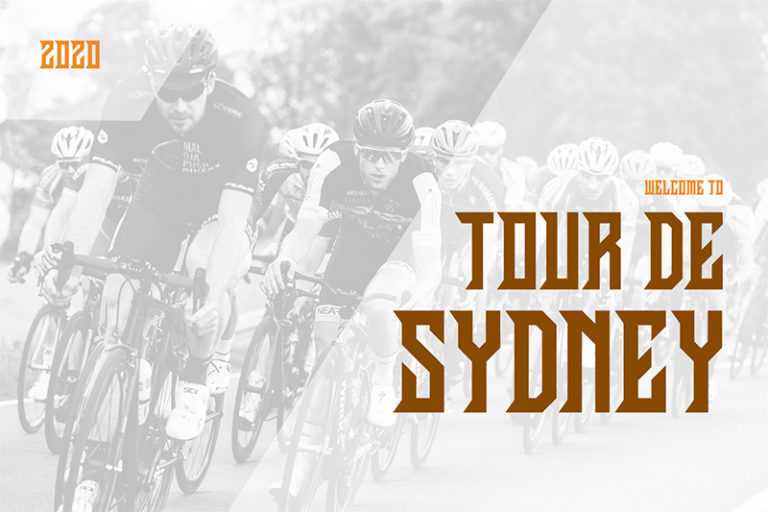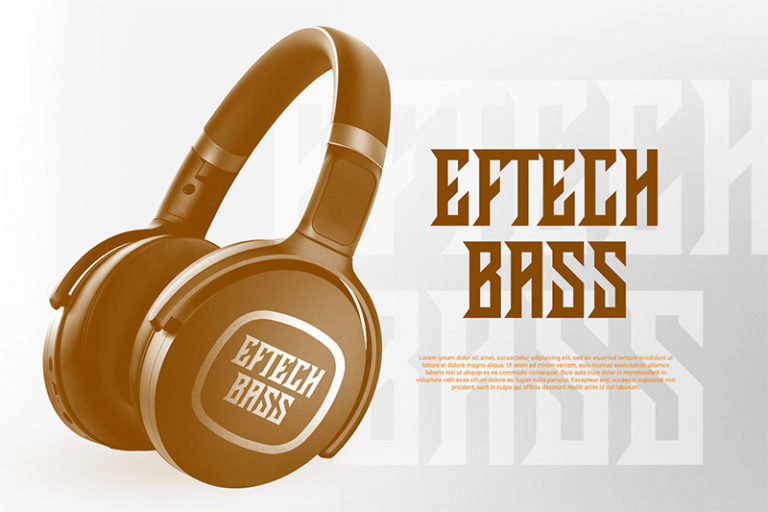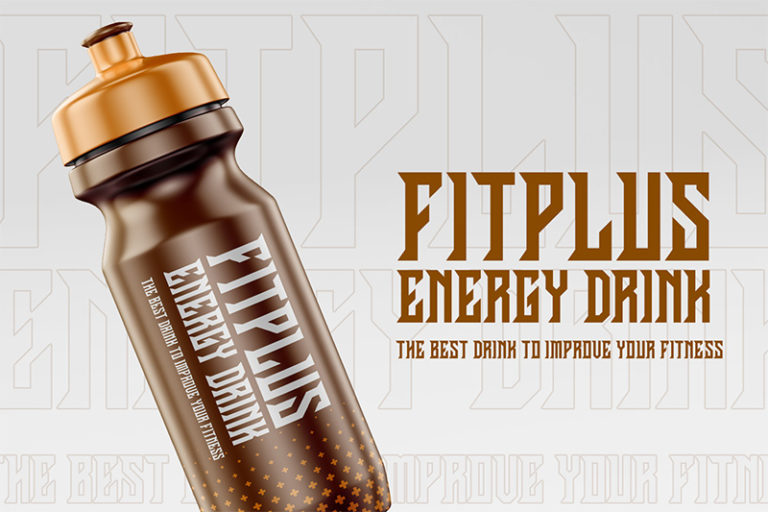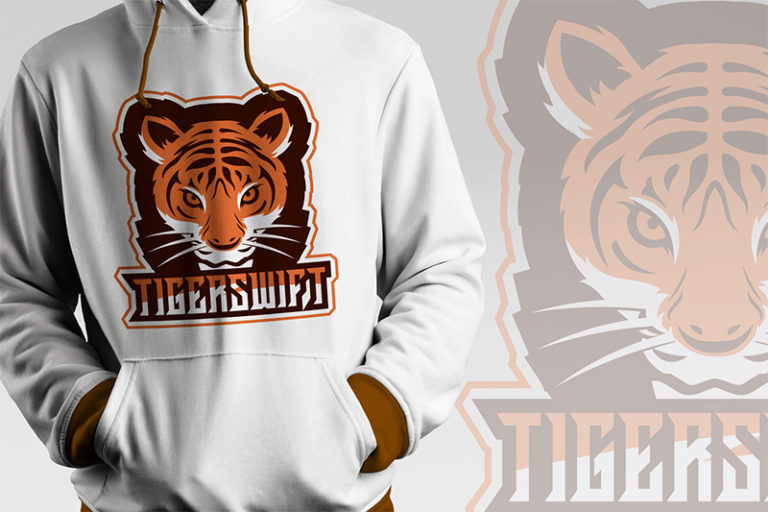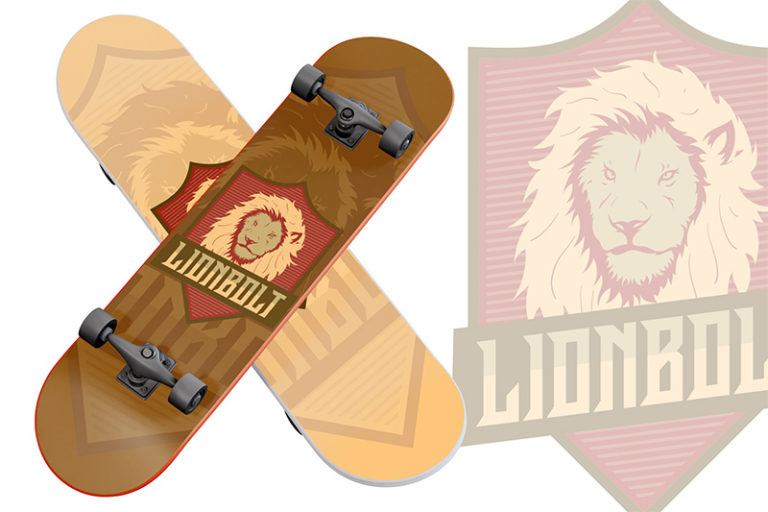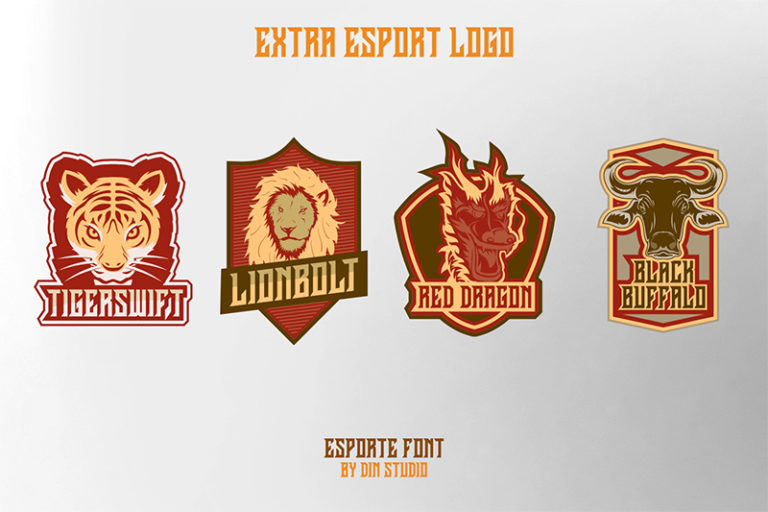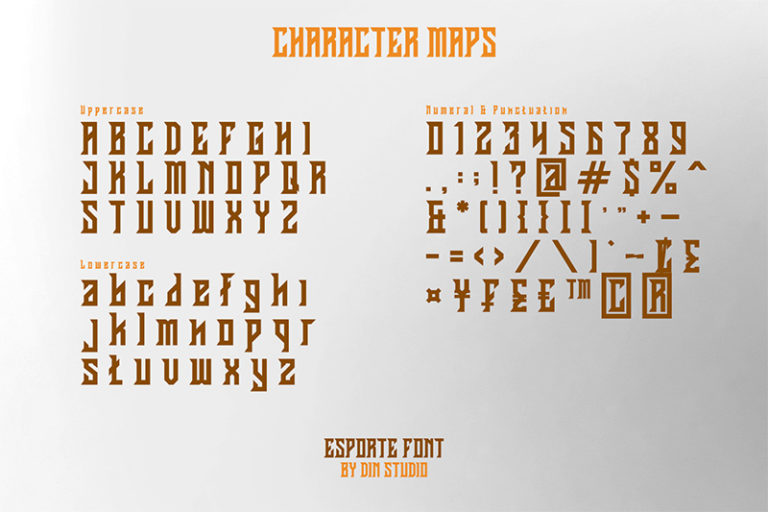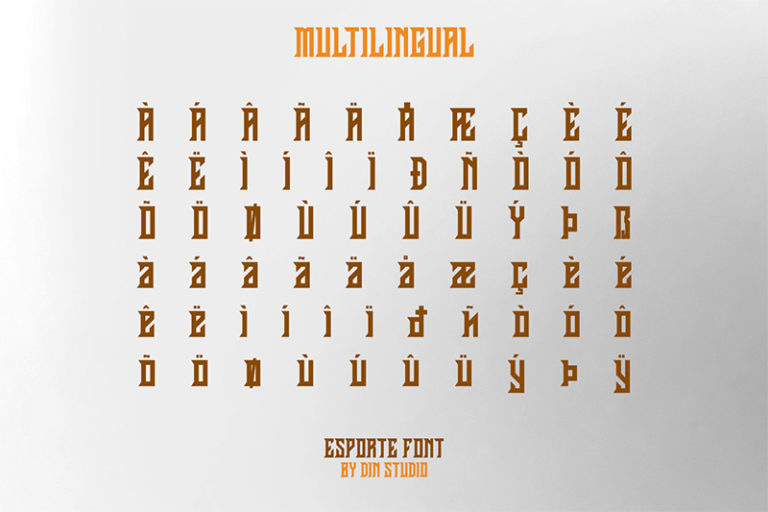
Esporte – Classic Sport Font
Esporte
Hello, Everyone! Let’s welcome Esporte, a classic sport font made for any professional projects related to sports. Besides, this font can be used for printings, brandings and quotes. See the previews above to get some inspiration on how you can use them. Happy Designing!